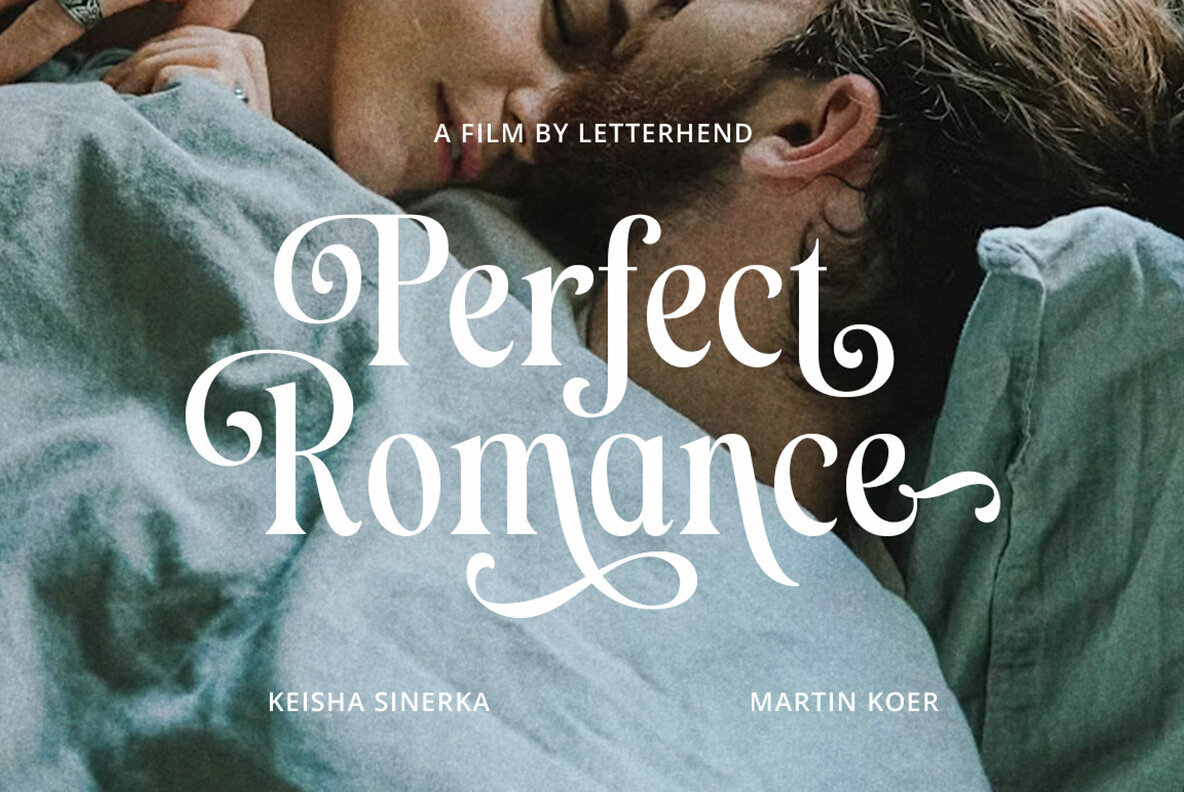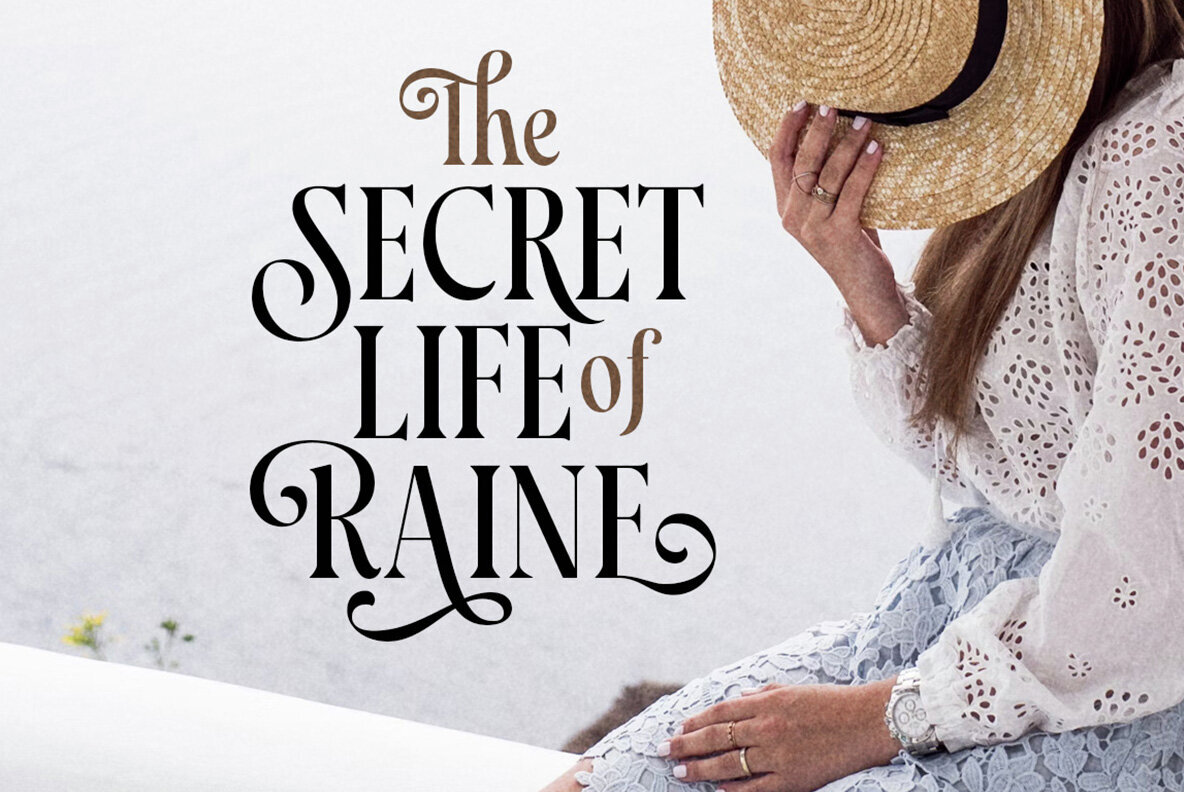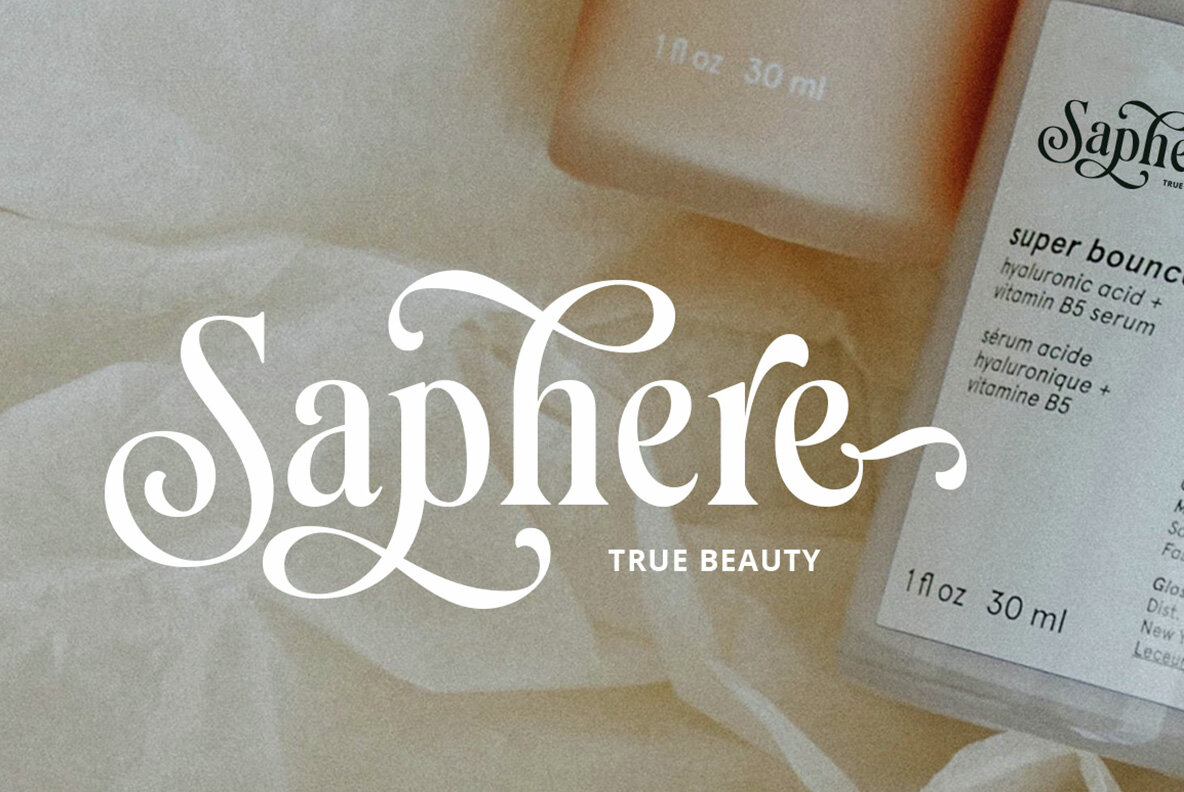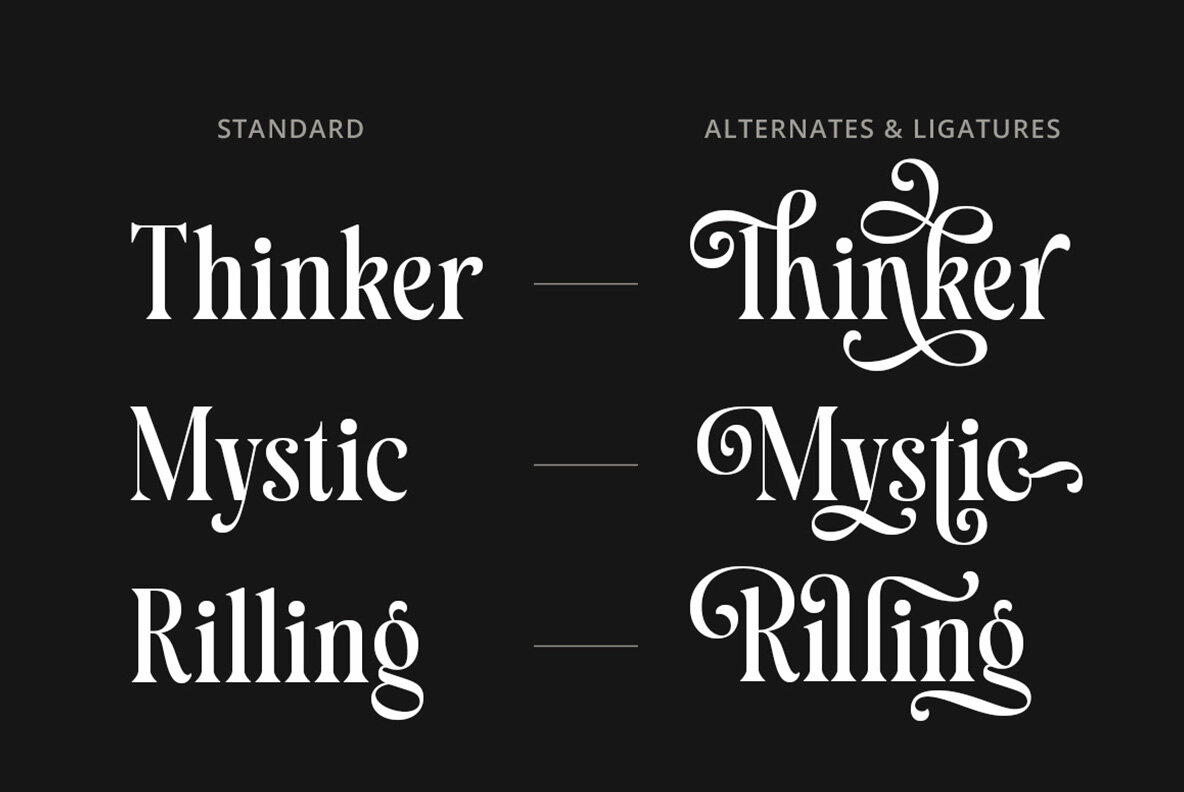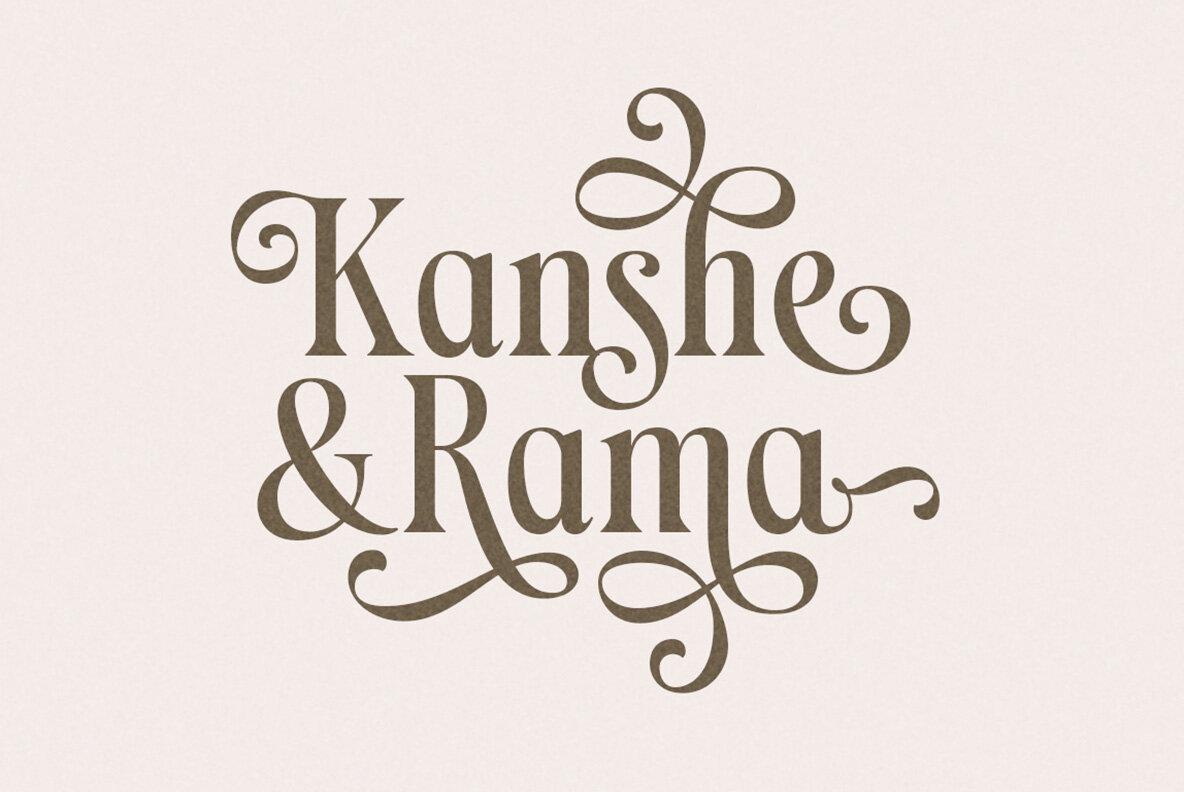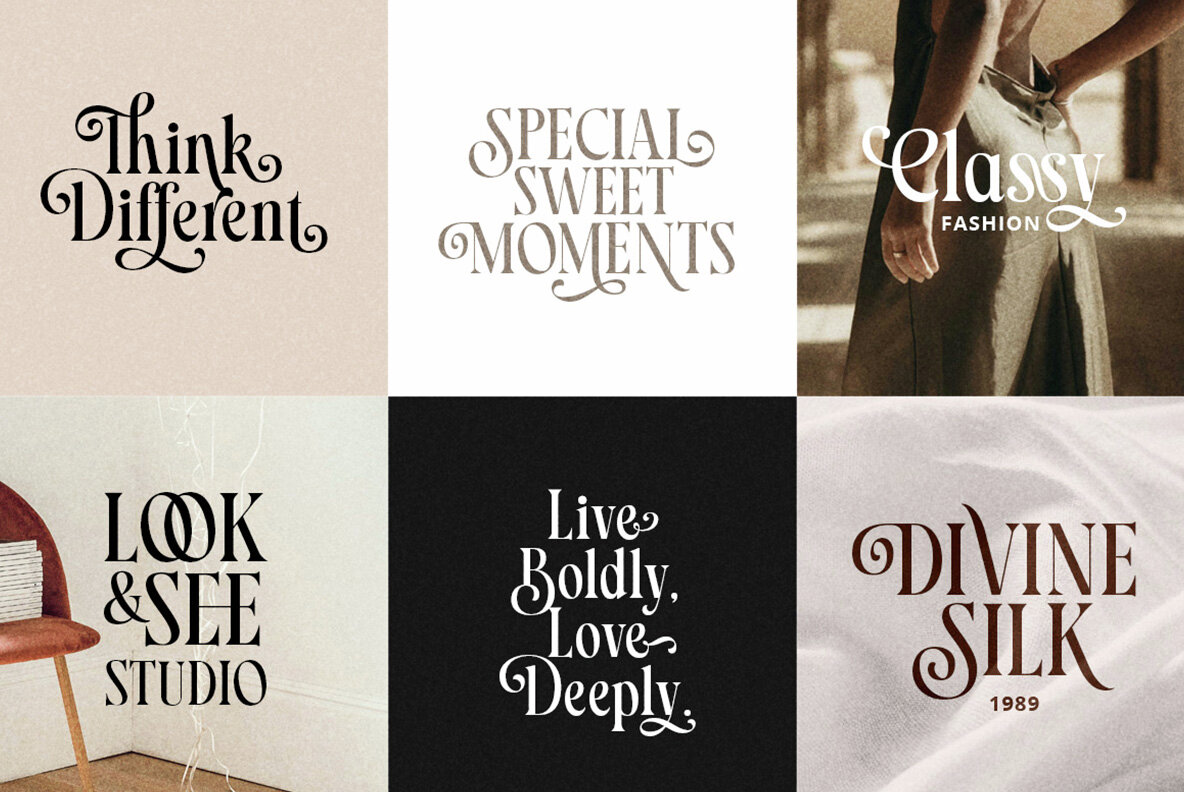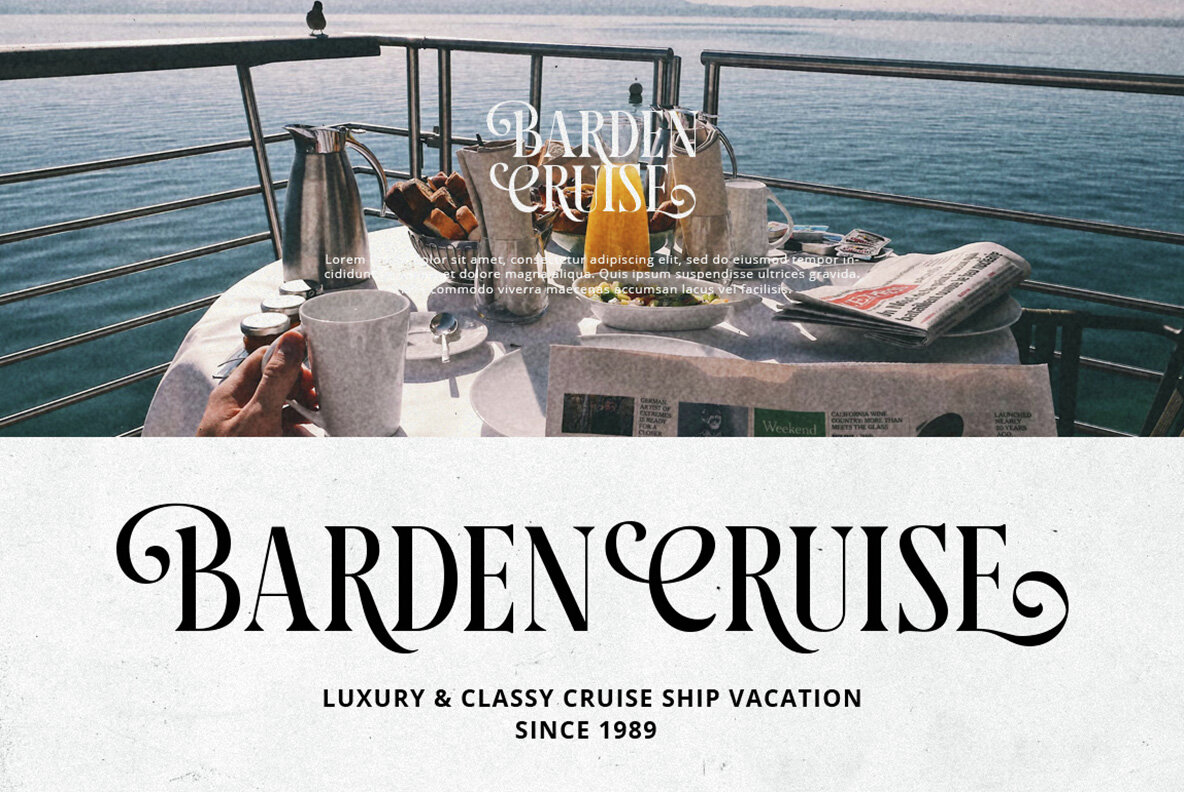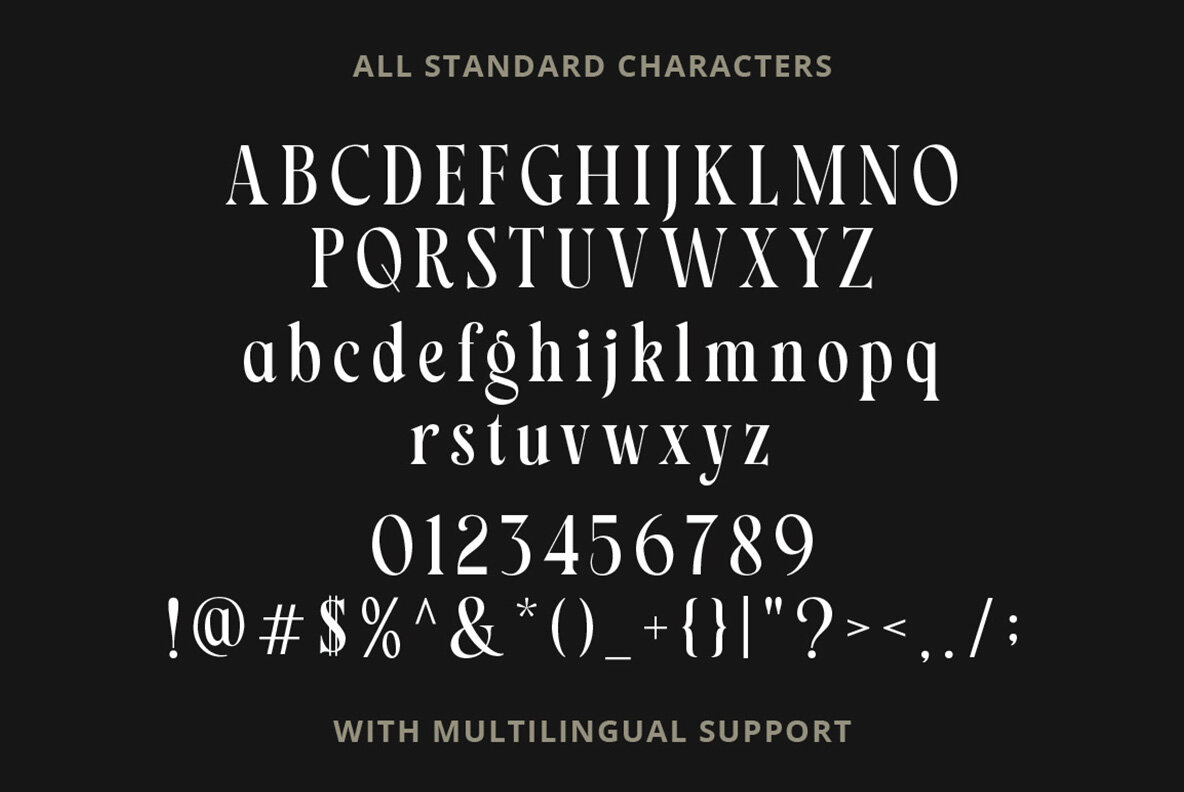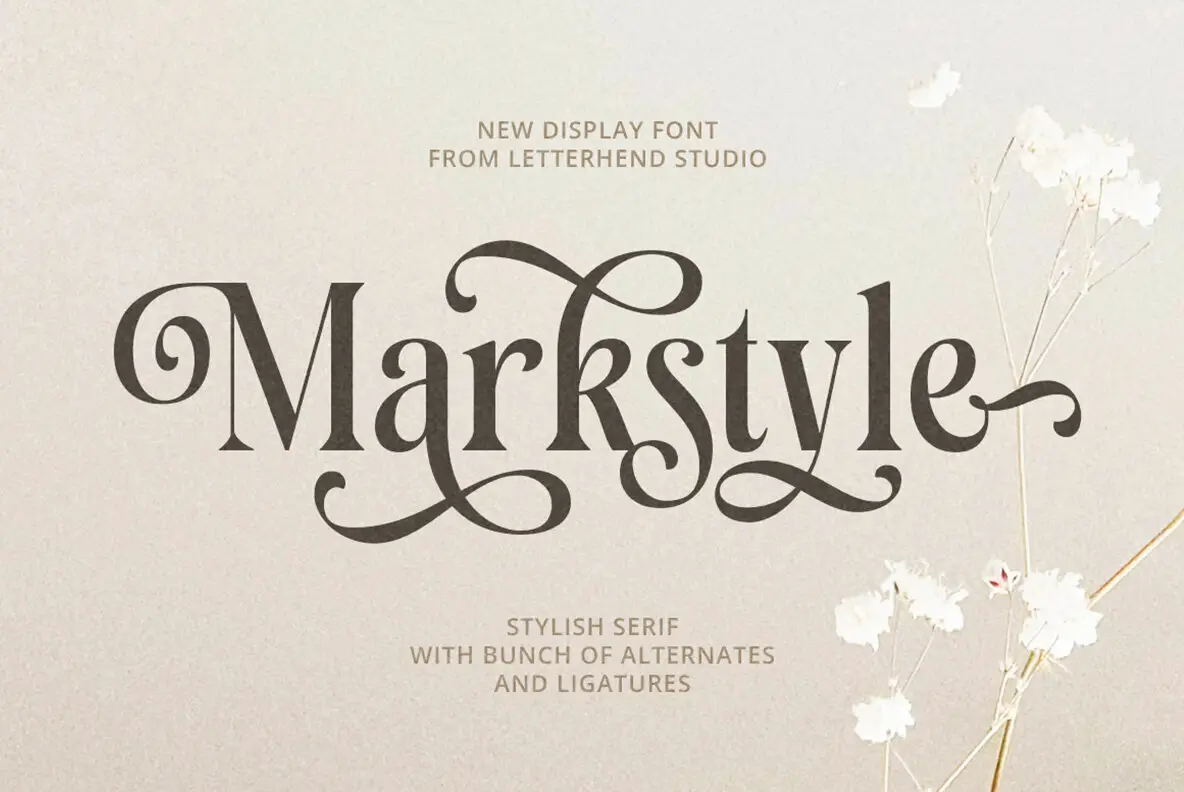
Markstyle Font
Markstyle is a stylish serif font characterized by its elegant curves, decorative swashes, and refined ligatures. Ideal for branding, packaging, wedding invitations, and luxury designs, this font adds a sophisticated touch to any project. With a variety of alternates and ligatures, Markstyle allows for the creation of unique and stunning typography effortlessly.
The font features uppercase and lowercase letters, numbers, punctuation, alternate characters, and multilingual support. Being PUA encoded, it offers wide accessibility. For optimal use, it is advisable to utilize programs that support OpenType features and Glyphs panels, such as Adobe applications and Corel Draw. This enables full visibility and access to all Glyph variations, enhancing your design capabilities.